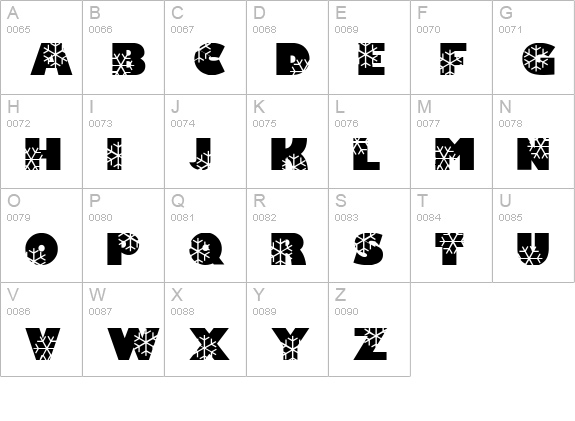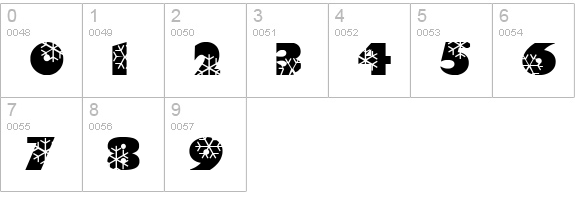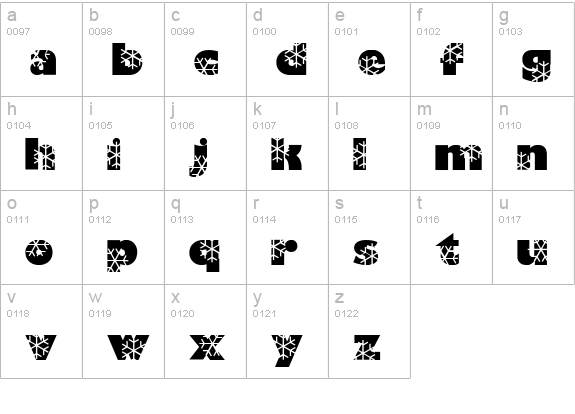
Krystal Font Details
Krystal font is a stunning display typeface that exudes elegance and sophistication. With its intricate details and modern aesthetic, Krystal is perfect for adding a touch of luxury to any design project. The sleek lines and graceful curves of this font make it ideal for logos, branding, and editorial design. What's even better is that Krystal font is available for free download at FontsMarket.com. This means that you can easily access this beautiful typeface and incorporate it into your creative work without any cost. Don't miss out on the opportunity to elevate your designs with the timeless beauty of Krystal font. Download it today and let your creativity shine!